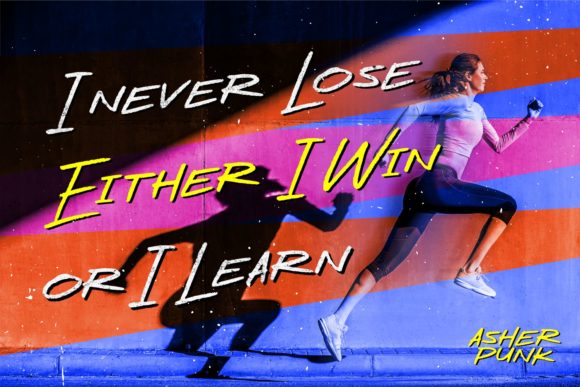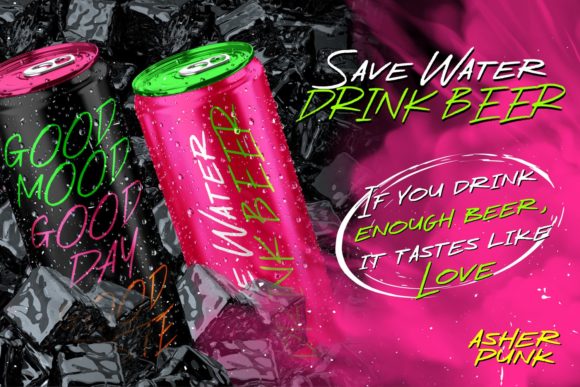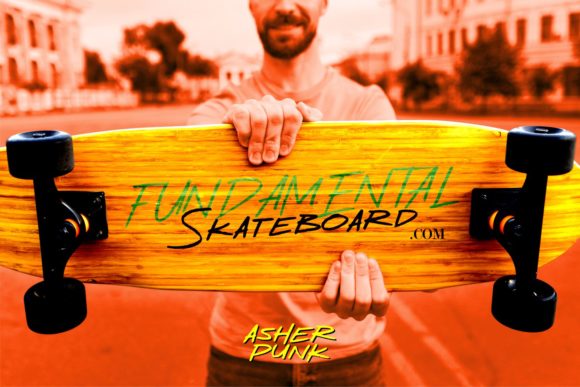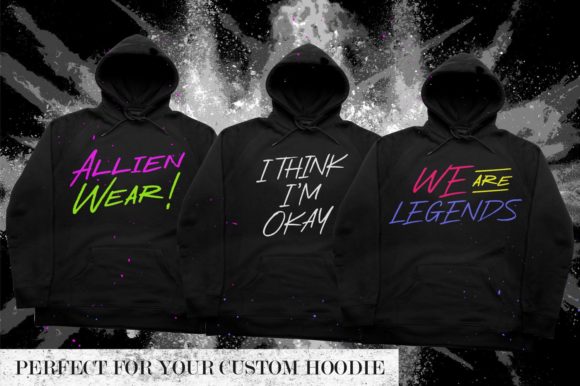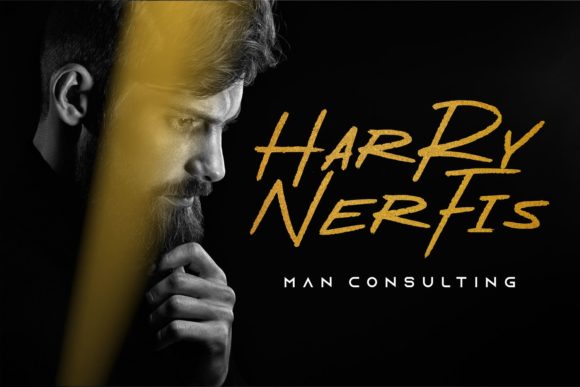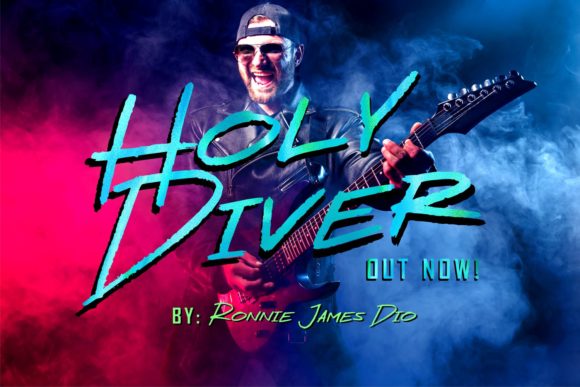
The Quest for the Perfect Font: Discovering Asher Punk
I’ll never forget the time I was working on a project for a client who wanted a bold, eye-catching title for their brand. I had spent hours scouring the internet for the perfect font, but nothing seemed quite right. That was until I stumbled upon Asher Punk, a simple yet trendy display font that instantly caught my attention. In this article, I’ll share my experience with Asher Punk, its features, and how to get the most out of this versatile font.
An Honest Review of Asher Punk
- ✨ Unique and quirky design: Asher Punk has a distinct personality that sets it apart from other fonts.
- ✅ Highly versatile: This font can be used for a wide range of projects, from letterheads and titles to stationery and more.
- 💡 Easily legible: Despite its bold and edgy design, Asher Punk remains easy to read, even at smaller sizes.
While Asher Punk is an excellent font, there are a few things to keep in mind:
- 🤔 Limited use for body text: Due to its bold design, Asher Punk is best suited for headings and titles rather than body text.
- ⚠️ May not work well with serif fonts: Asher Punk’s sans-serif design may clash with serif fonts, so it’s best to pair it with other sans-serif fonts.
The Backstory of Asher Punk
Asher Punk was designed by a young, up-and-coming type designer who wanted to create a font that was both bold and approachable. Inspired by the punk rock movement and the DIY ethos, Asher Punk is a reflection of the designer’s passion for creativity and self-expression. With its unique design and versatile features, Asher Punk has quickly become a favorite among designers and crafty hobbyists alike.
| Font Name | Asher Punk Font |
| Author | allouse.studio |
Q: What is Asher Punk?
Asher Punk is a simple and trendy display font designed for creative projects.
Q: Is Asher Punk suitable for body text?
While Asher Punk is legible, it’s best suited for headings and titles rather than body text due to its bold design.